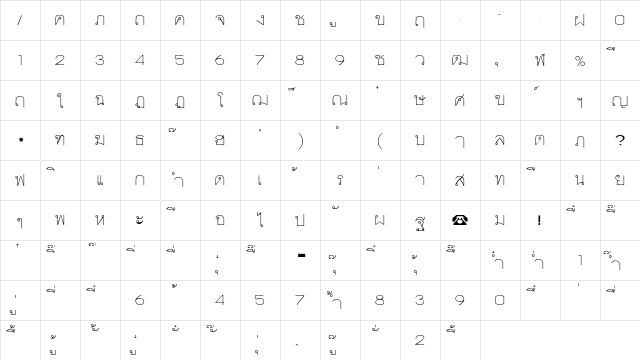
Sara Buri Regular
Design Context for Sara Buri Typeface
Sara Buri is a composed and adaptable typeface that performs quietly and consistently across a wide range of design contexts.